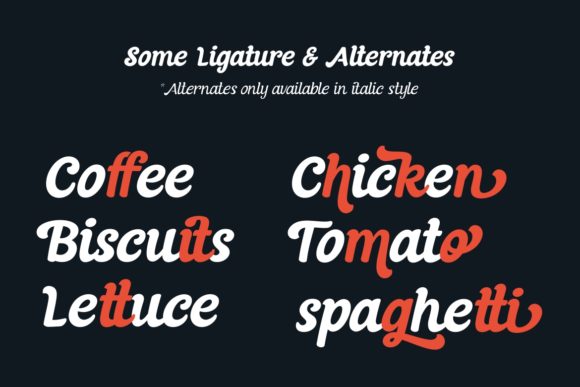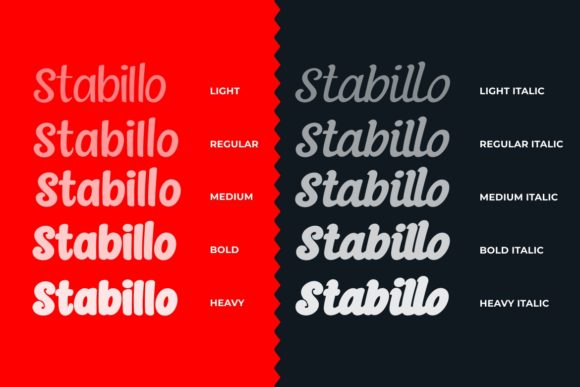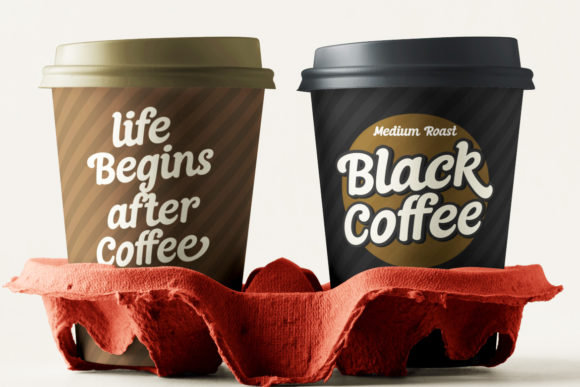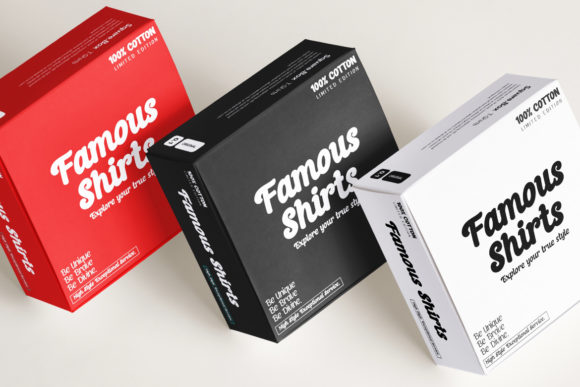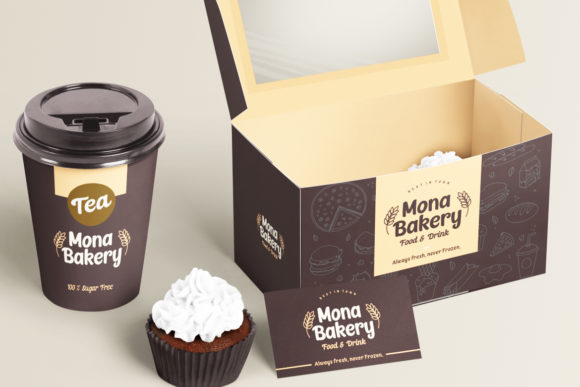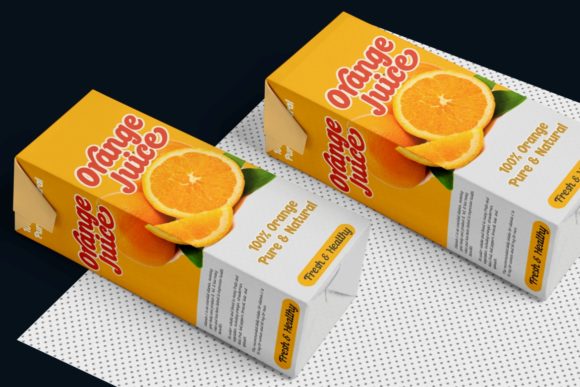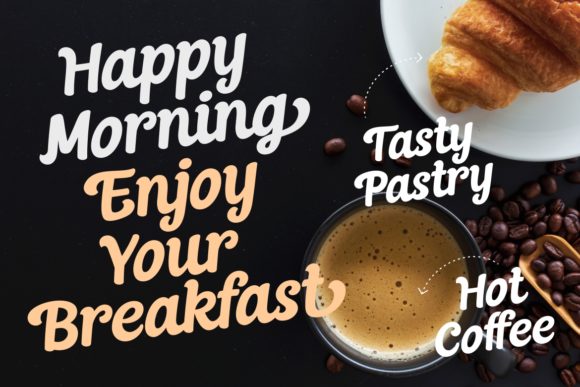
Stabillo Font
Stabillo is a stunning font family. This handwritten font had 10 weights font palette that make it incredible versatile. Combine these great styles and create amazing logos, eye-catching social media posts, cute stationery and much more!